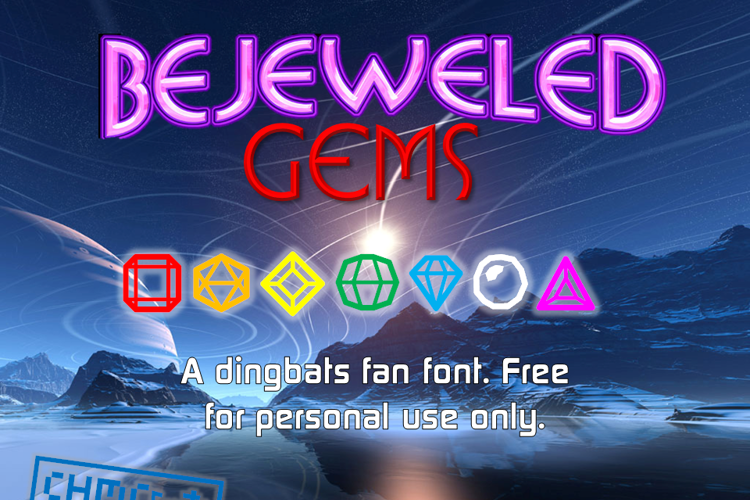
Bejeweled Gems Font
Bejeweled Gems is a fan-made video game dingbats font, based on gem appearances from the games Bejeweled Twist and Bejeweled 3. Free for personal use only.